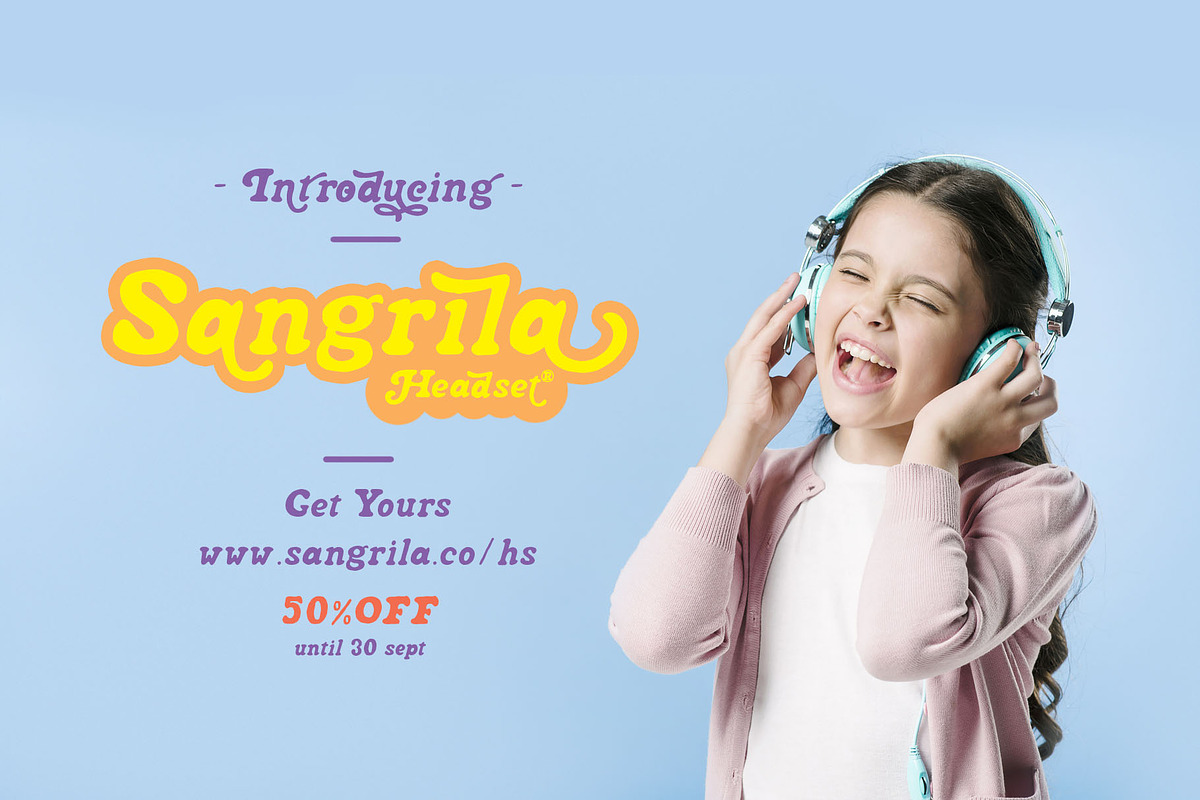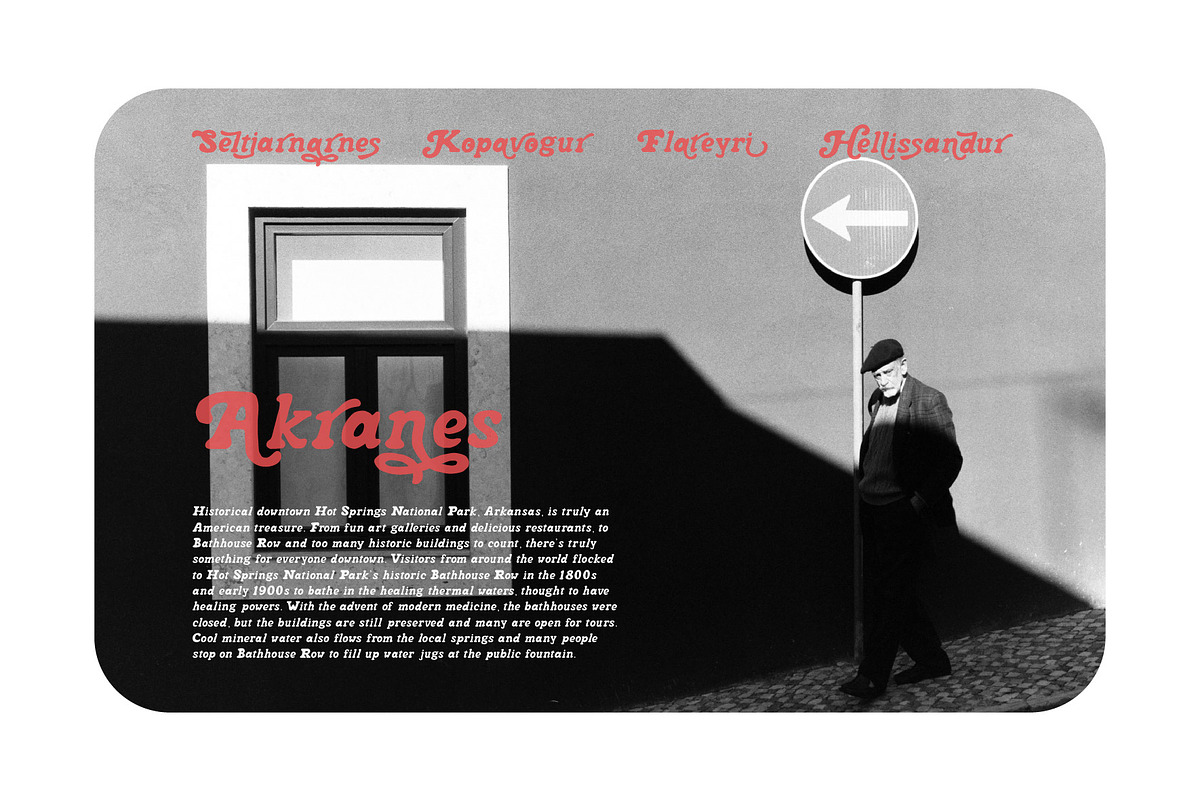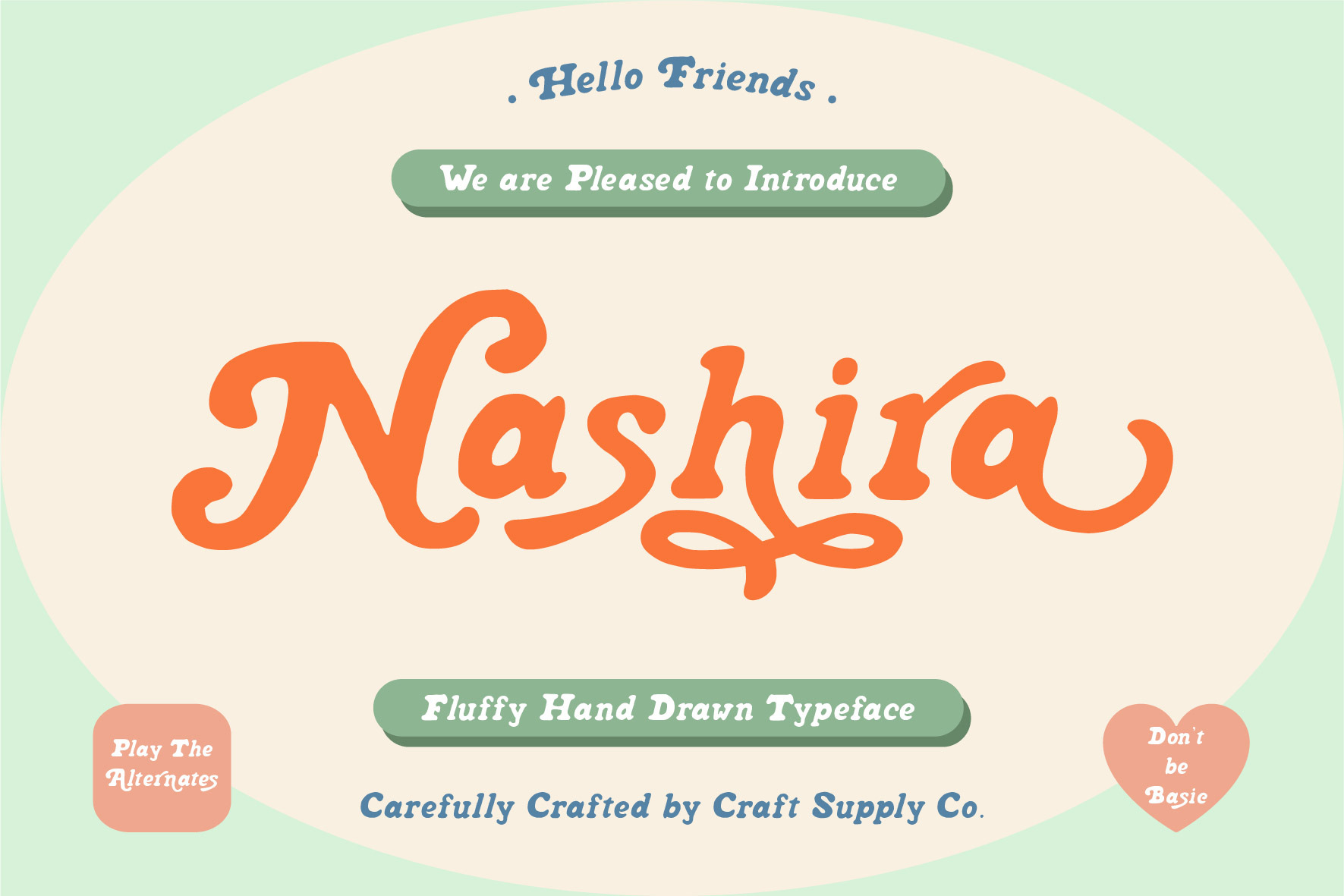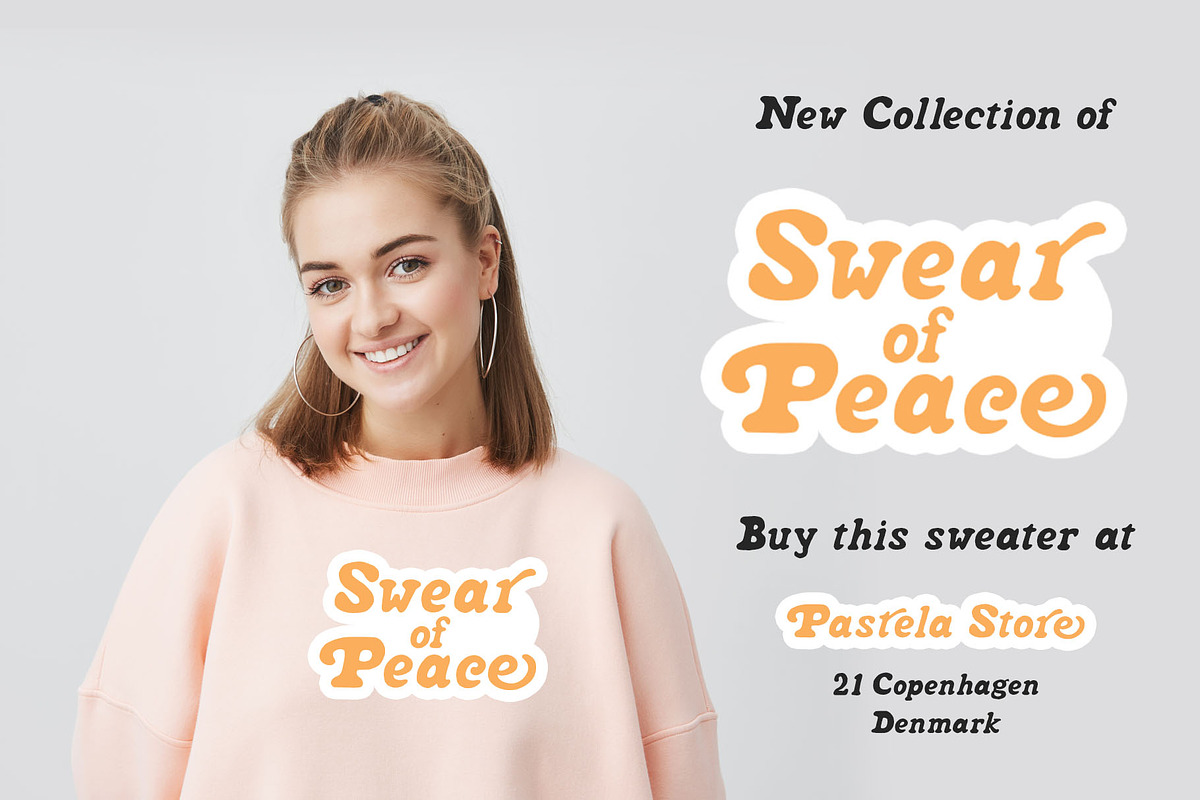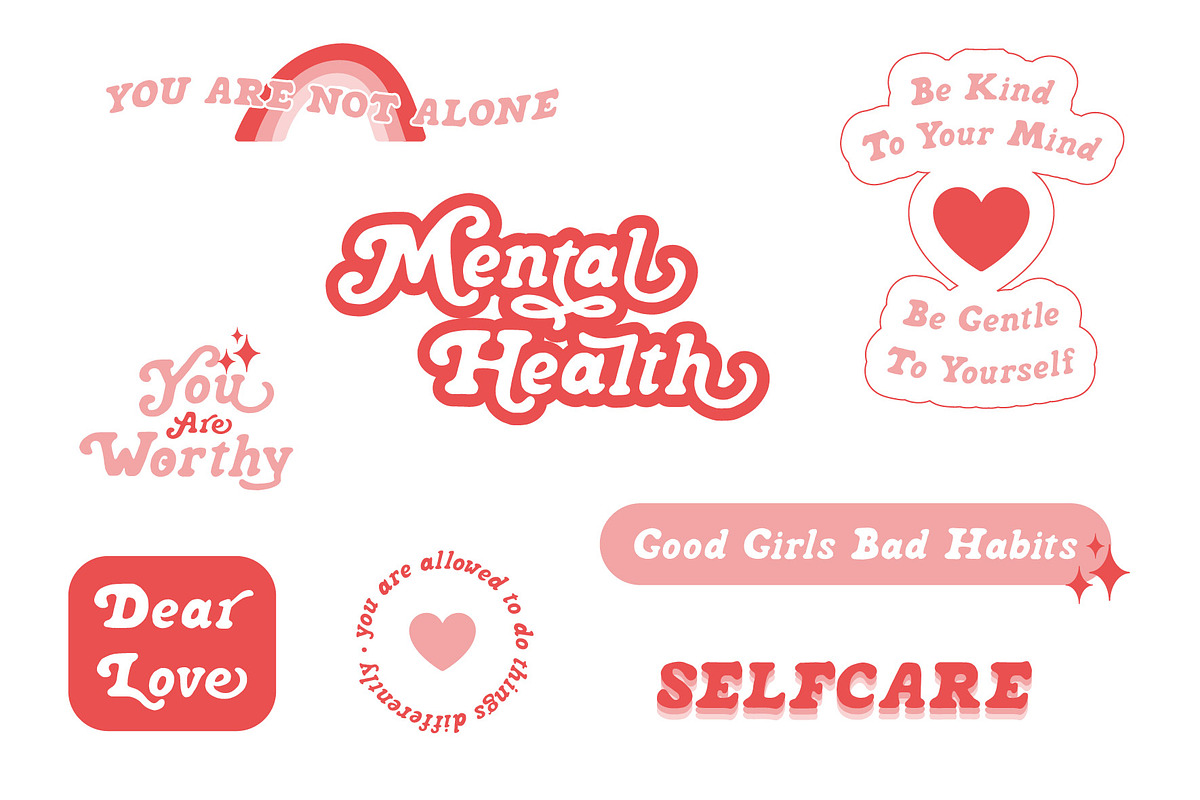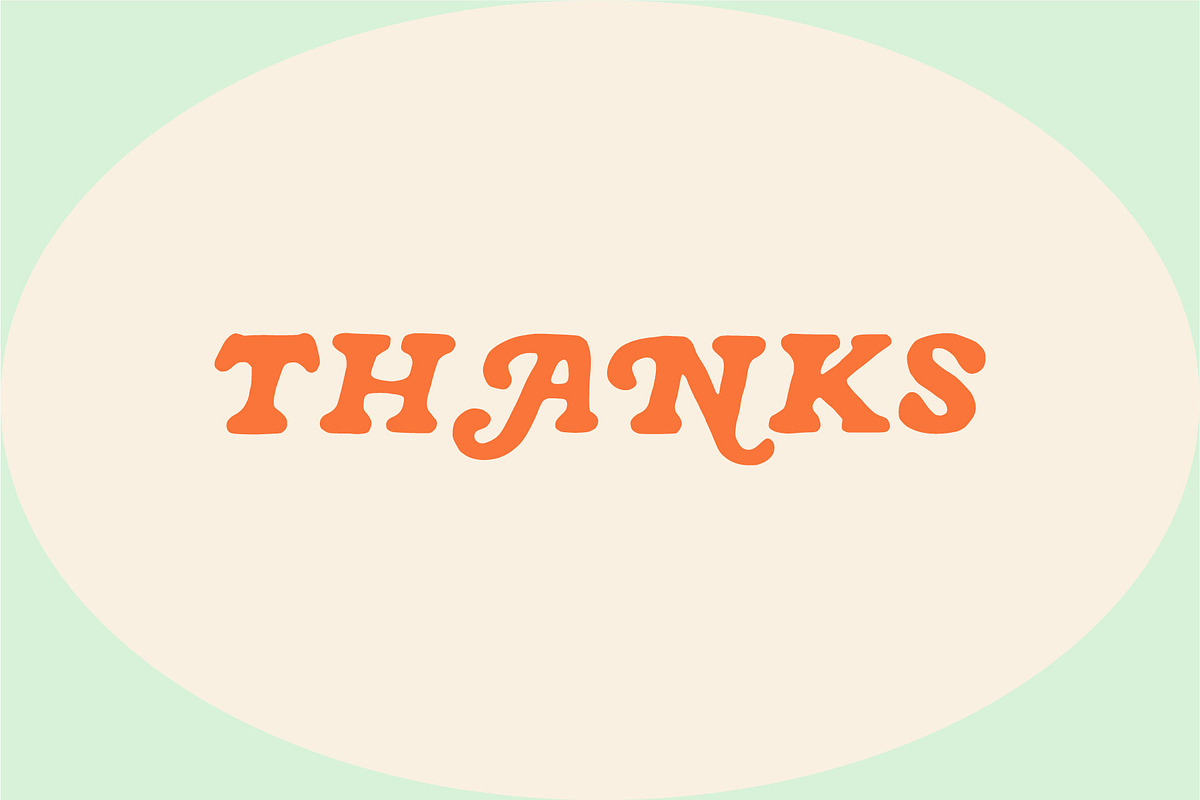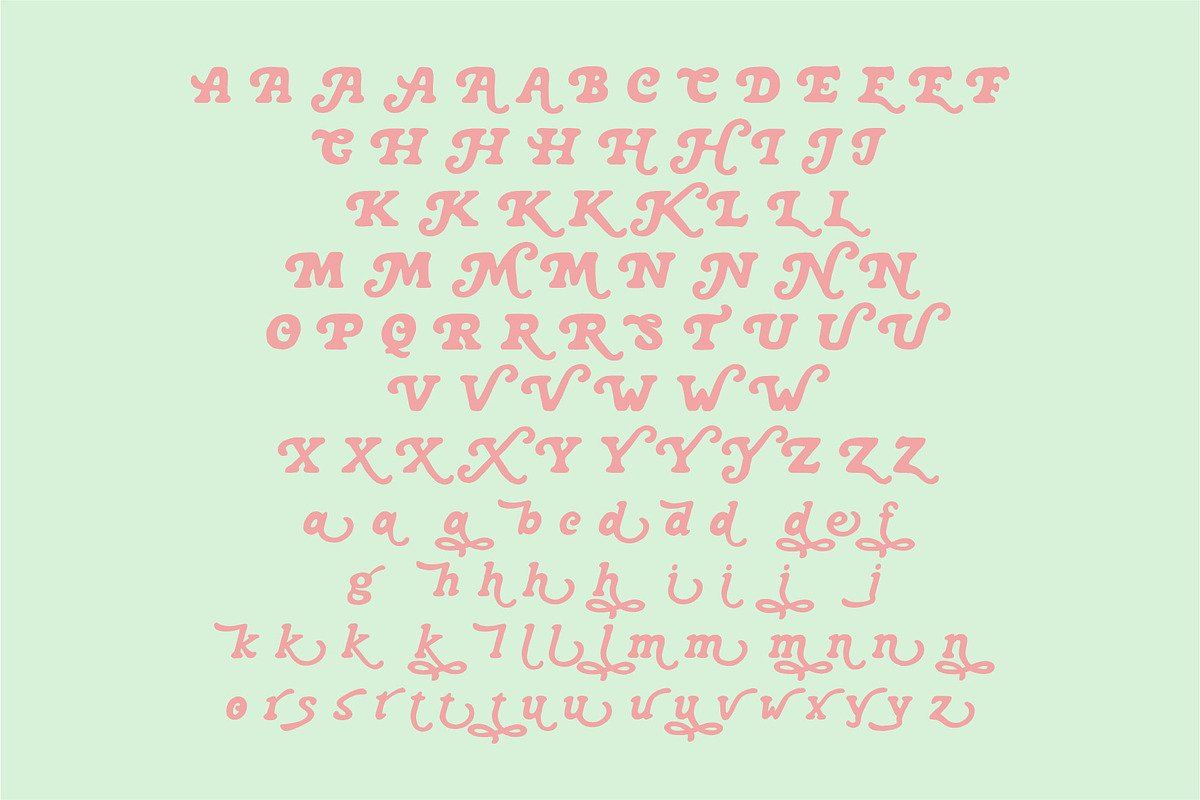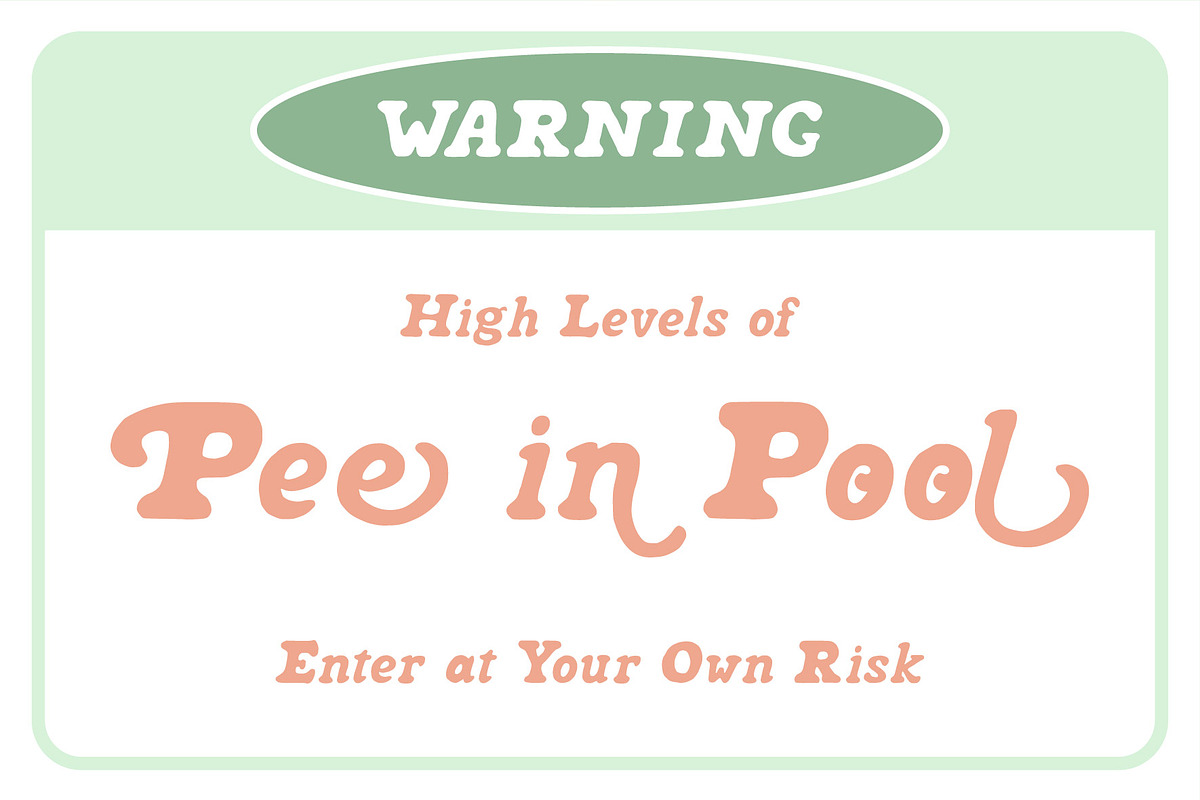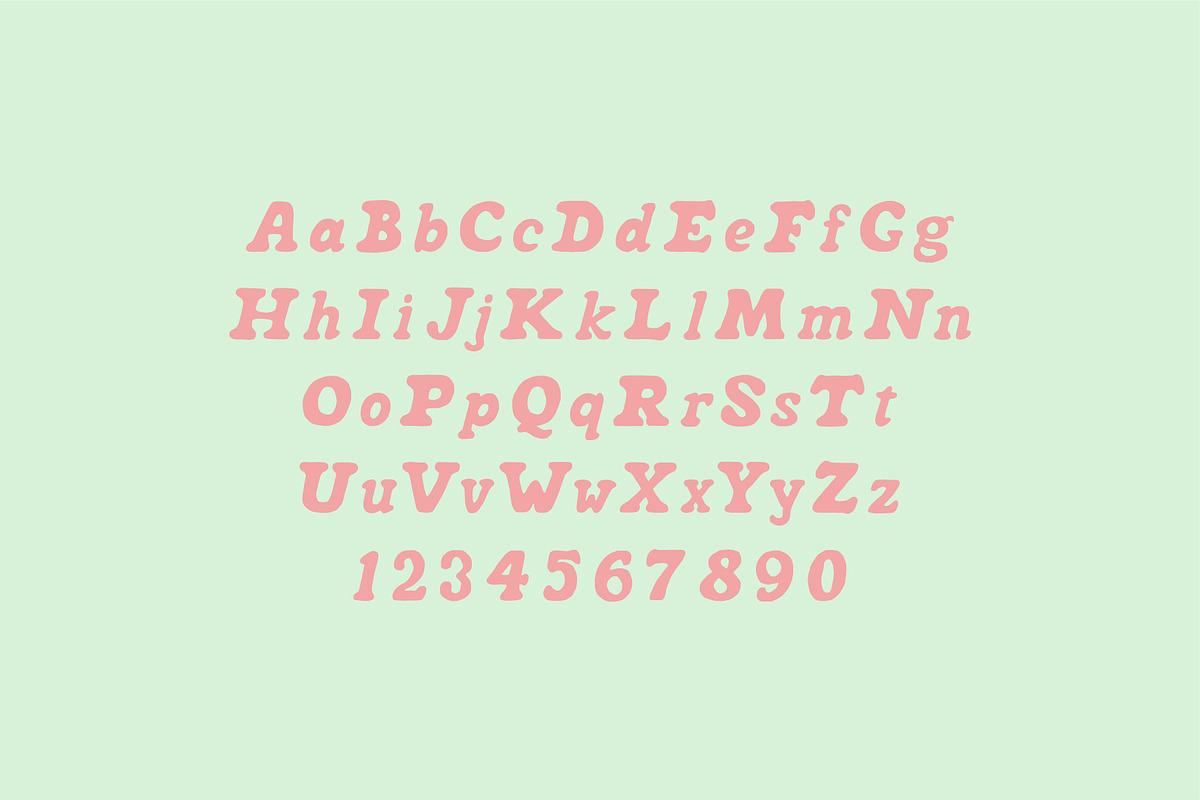
Nashira - Fluffy Hand Drawn Typeface
Introducing Nashira - Fluffy Hand Drawn Typeface
Introducing Nashira - Fluffy Hand Drawn Typeface It can be used to create almost all types of design projects like print materials. Just use your imagination and your project will become more alive and look great than ever with Nashira - Fluffy Hand Drawn Typeface
You want to make a greeting card or a package design, or even a brand identity, craft design, any DIY project, book title, wedding font, pop vintage design, retro design or any purpose to make your art / design project look pretty and trendy? Feel free to play with this fonts!
- All Caps Font
- Stylistic Alternates (A B C D E F G H I J K L M N Q R S T U V W X Y Z a b c d e f g h i j k l m n o r s t u v w x y z)
- Accents (Multilingual characters) (AÀÁÂÃÄÅCÇDÐEÈÉÊËIÌÍÎÏNÑOØÒÓÔÕÖUÙÜÚÛWYÝŸỲŸÆŒßÞ)